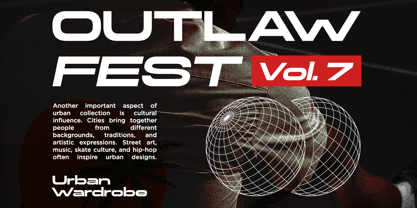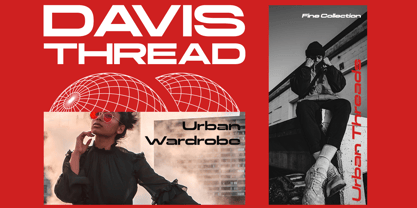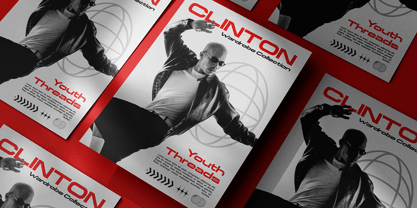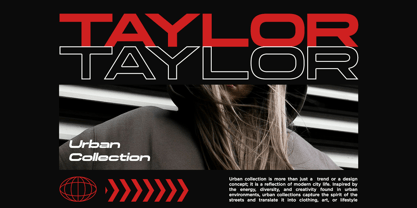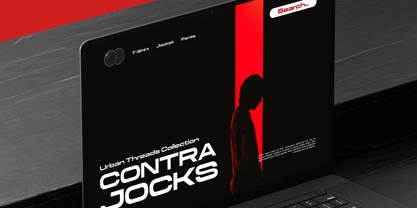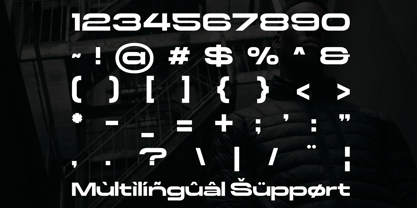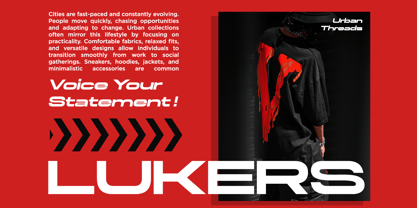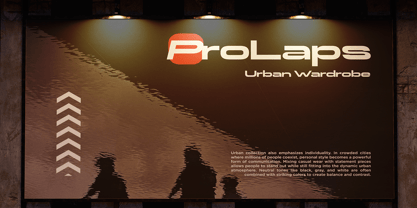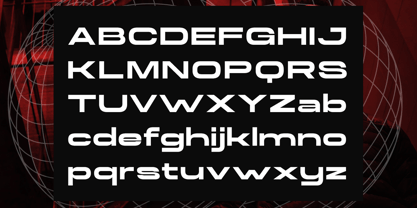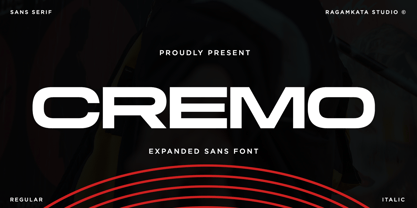
Cremo
by RagamKata
The Cremo Font Family was designed by Yogiswhara Dio Prakoso Riadi and published by RagamKata. Cremo contains 2 styles and family package options. More about this family
Cremo is a bold expanded sans typeface designed to deliver strong visual impact, modern clarity, and confident expression. With its wide proportions, clean geometry, and powerful letterforms, Cremo offers a striking contemporary feel that elevates headlines, branding, and display compositions. Its expanded structure ensures excellent readability while projecting a premium, modern, and professional tone. Ideal for branding designers, creative studios, digital creators, and marketing teams, Cremo serves as a versatile typographic solution for modern visual communication. From logo design and brand identity systems to posters, packaging, editorial layouts, social media graphics, website headers, advertising campaigns, and motion design, this font helps projects stand out with a bold presence and polished aesthetics. Whether crafting brand identities, fashion visuals, streetwear graphics, tech branding, esports visuals, promotional banners, UI headlines, or commercial advertising, Cremo provides a powerful typographic foundation. Its expanded structure creates a strong hierarchy, commanding attention while maintaining flexibility across both print and digital platforms. Thank You! Ragamkata
Designers: Yogiswhara Dio Prakoso Riadi
Foundry: RagamKata